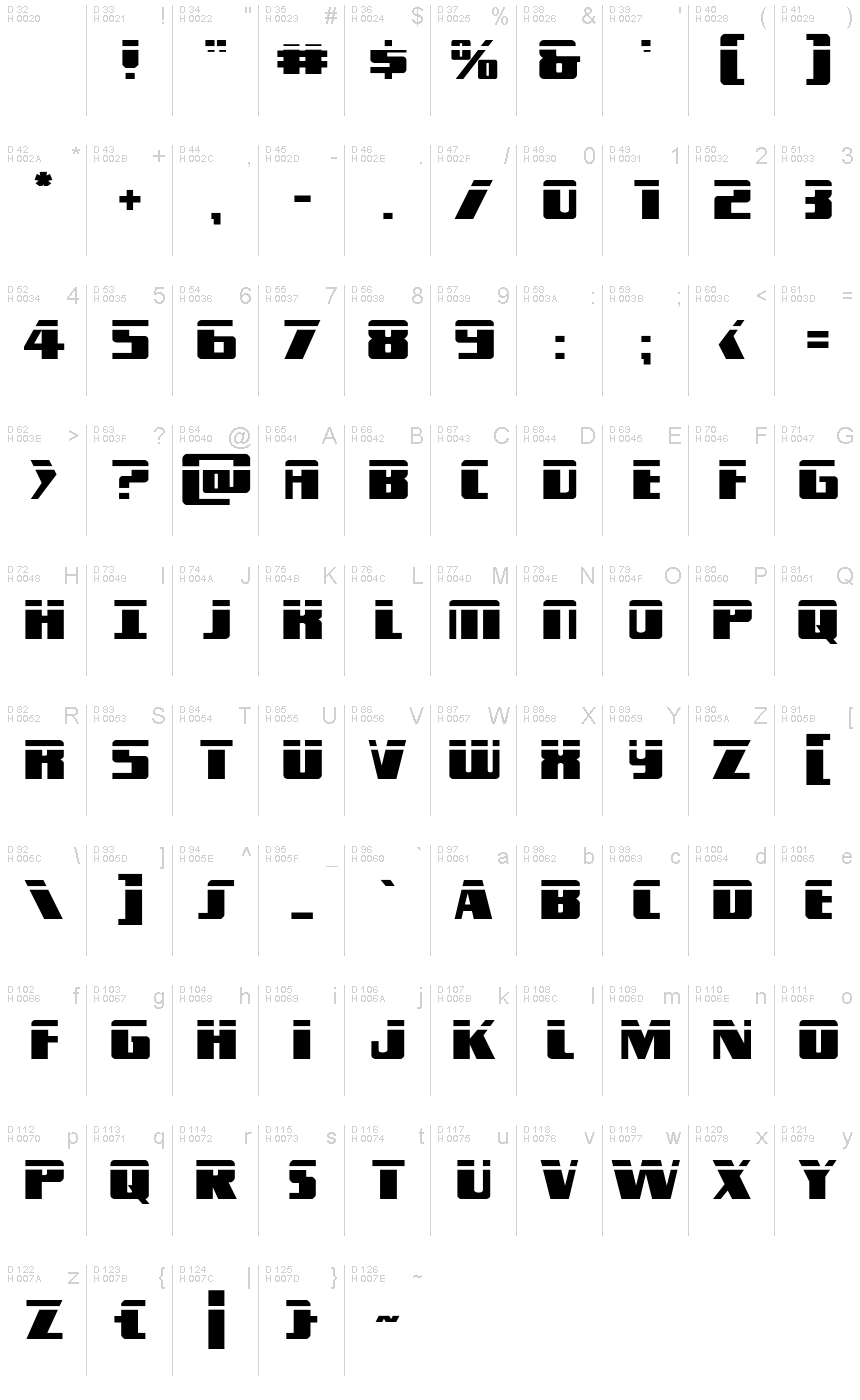
Typhoon Laser
Typhoon Laser, a standout offering from the Typhoon font family by Iconian Fonts, captures attention with its bold, expanded sans serif design. The font's robust and striking forms exude confidence and assertiveness, making it perfect for headlines and branding applications that demand immediate impact. Its expansive width ensures each character makes a statement, creating an imposing presence on any medium.
Ideal for projects requiring high visibility and a modern touch, Typhoon Laser thrives in posters, logos, and digital interfaces where readability combined with strong visual appeal is paramount. This font’s powerful aesthetic is both contemporary and timeless, providing versatility across various design landscapes.